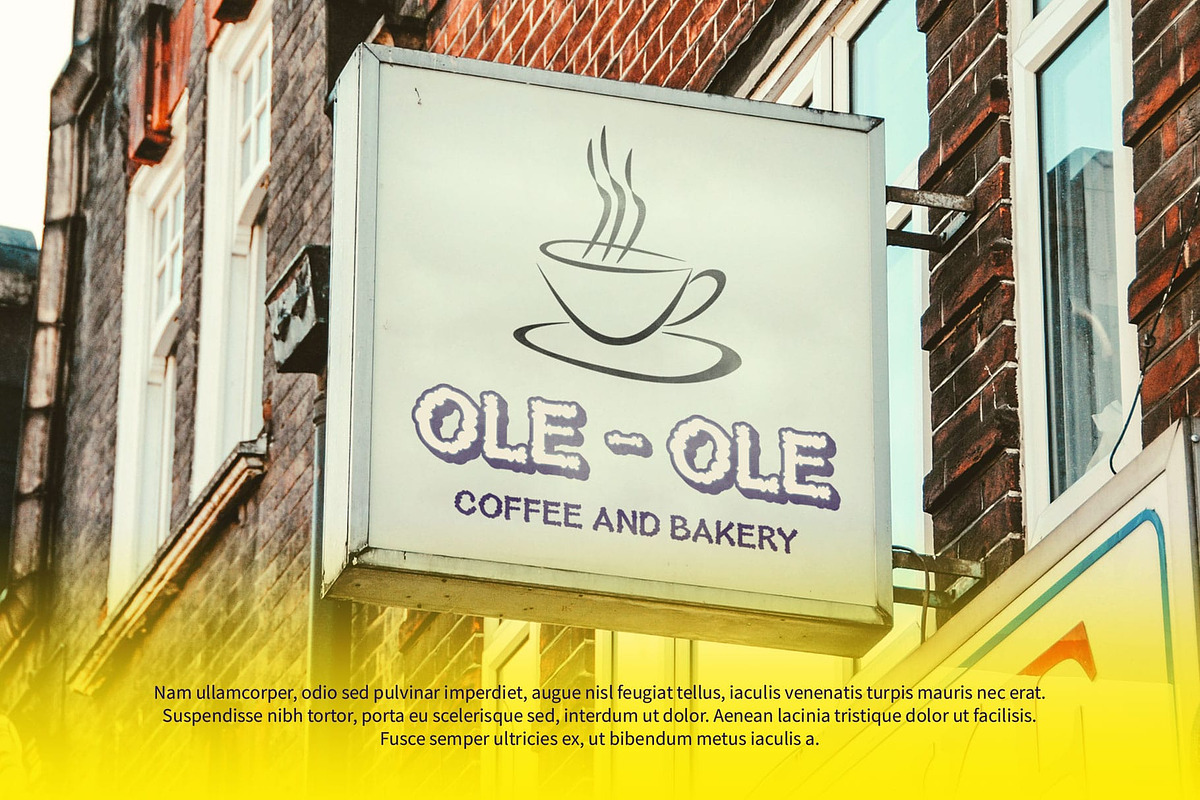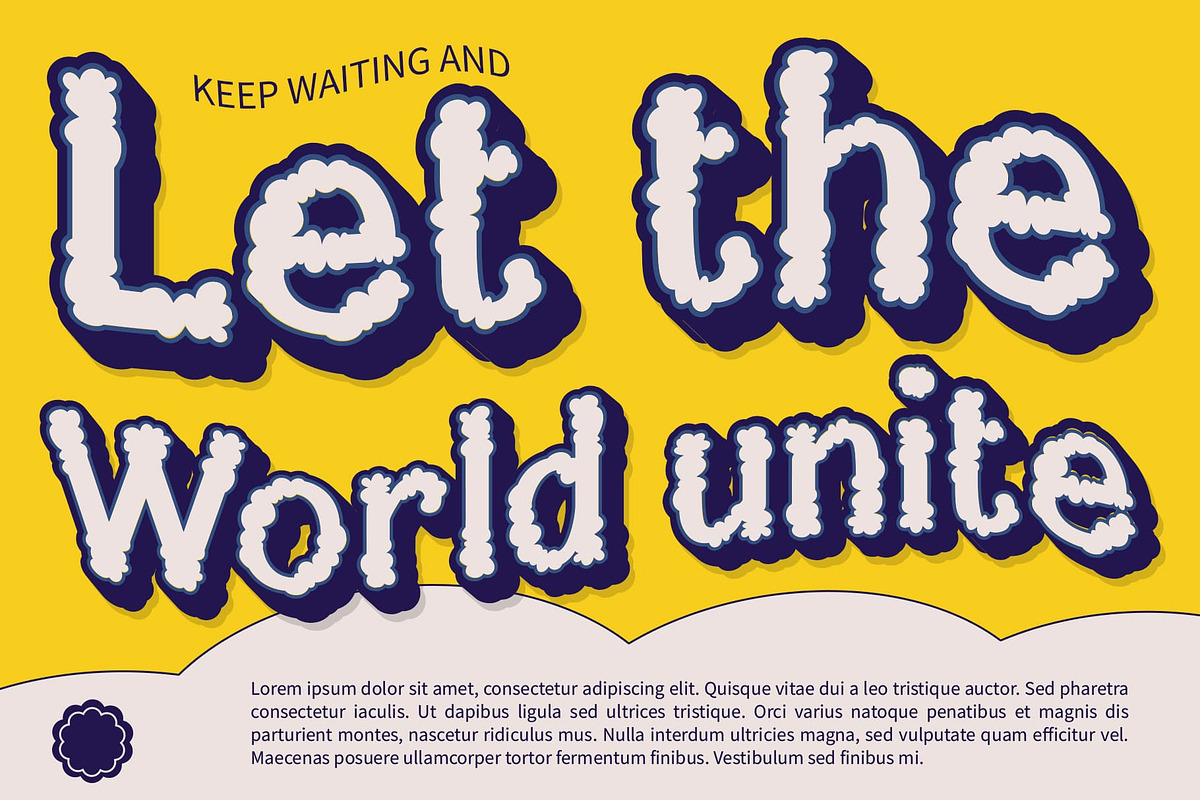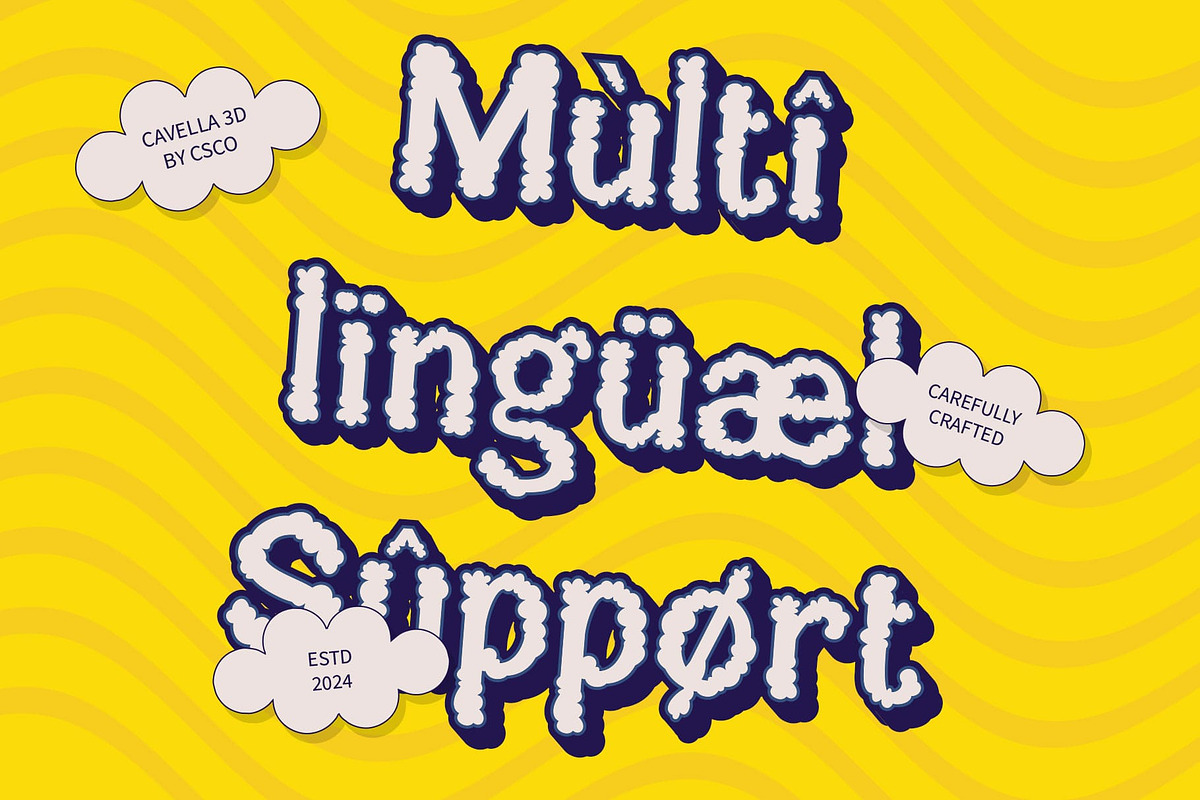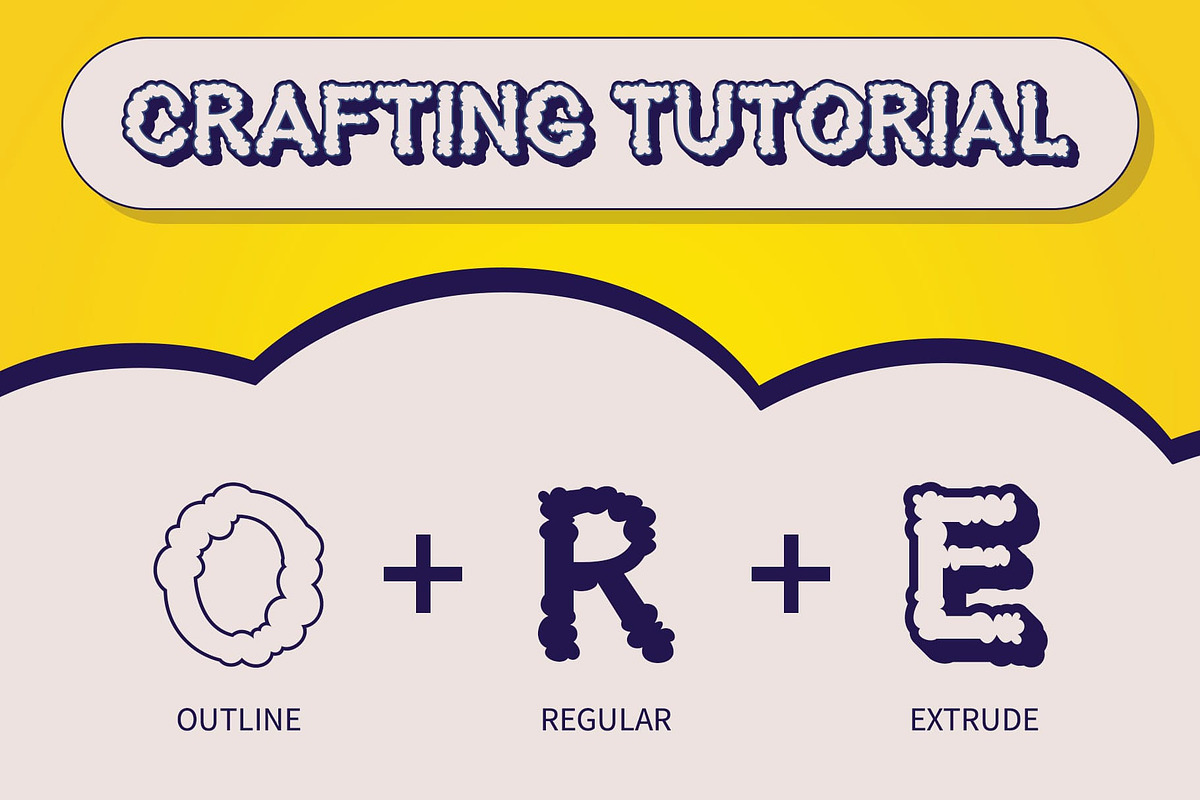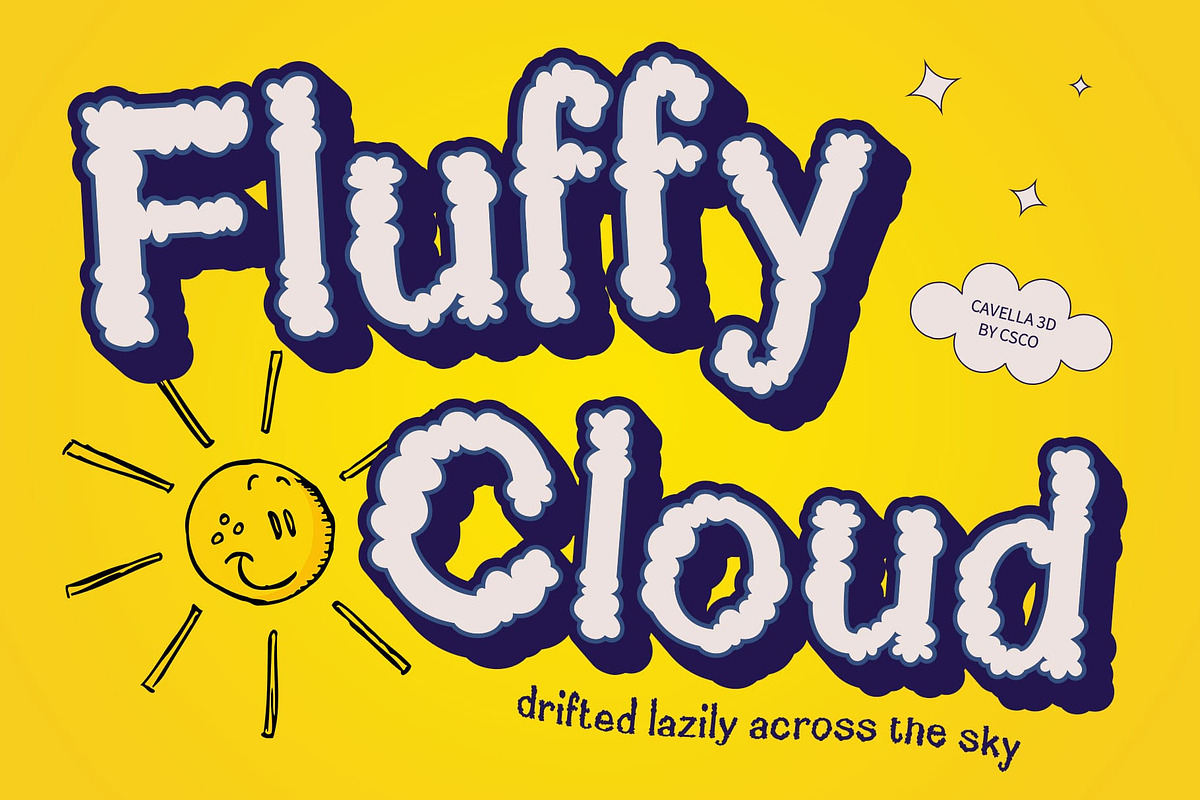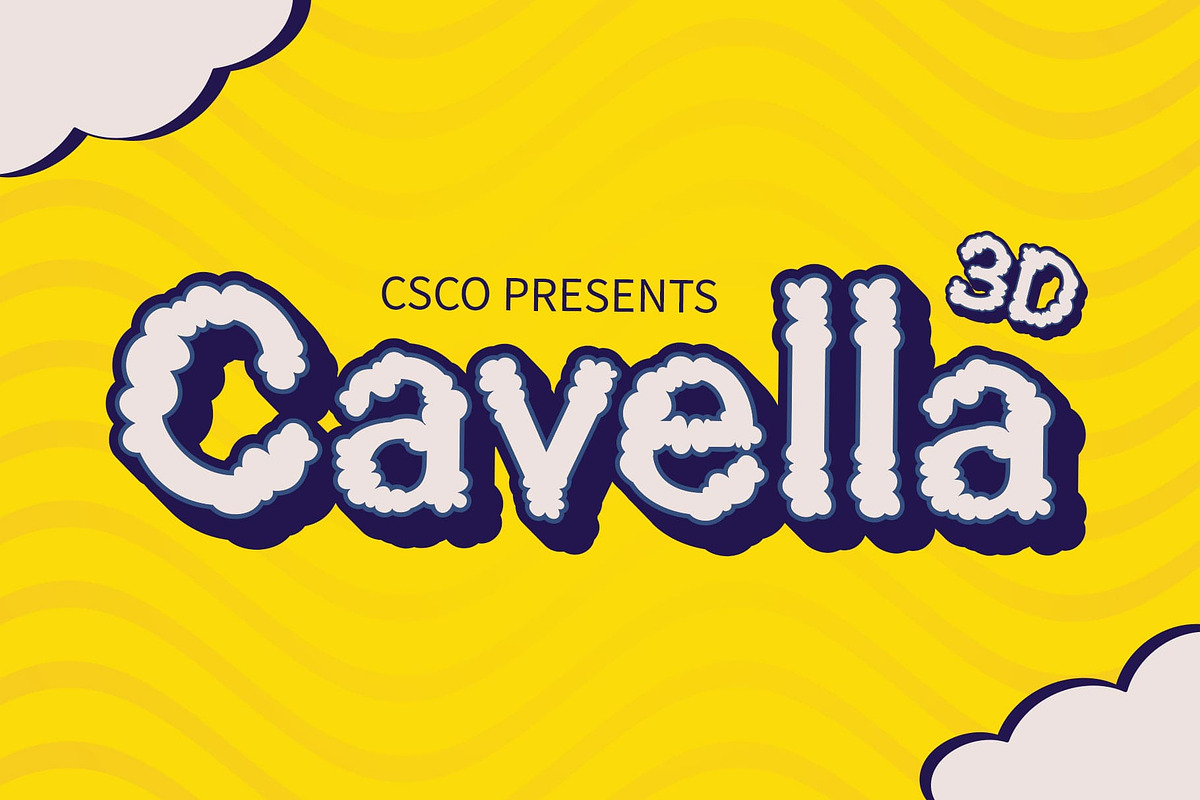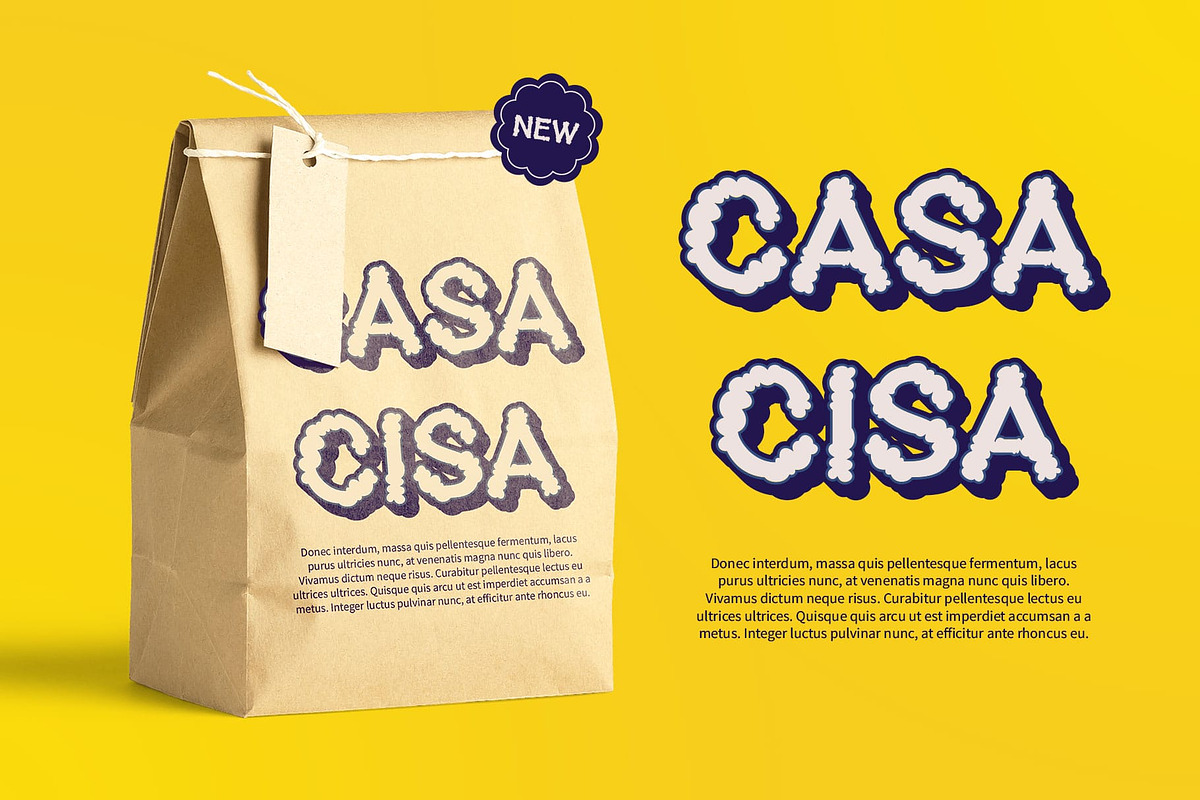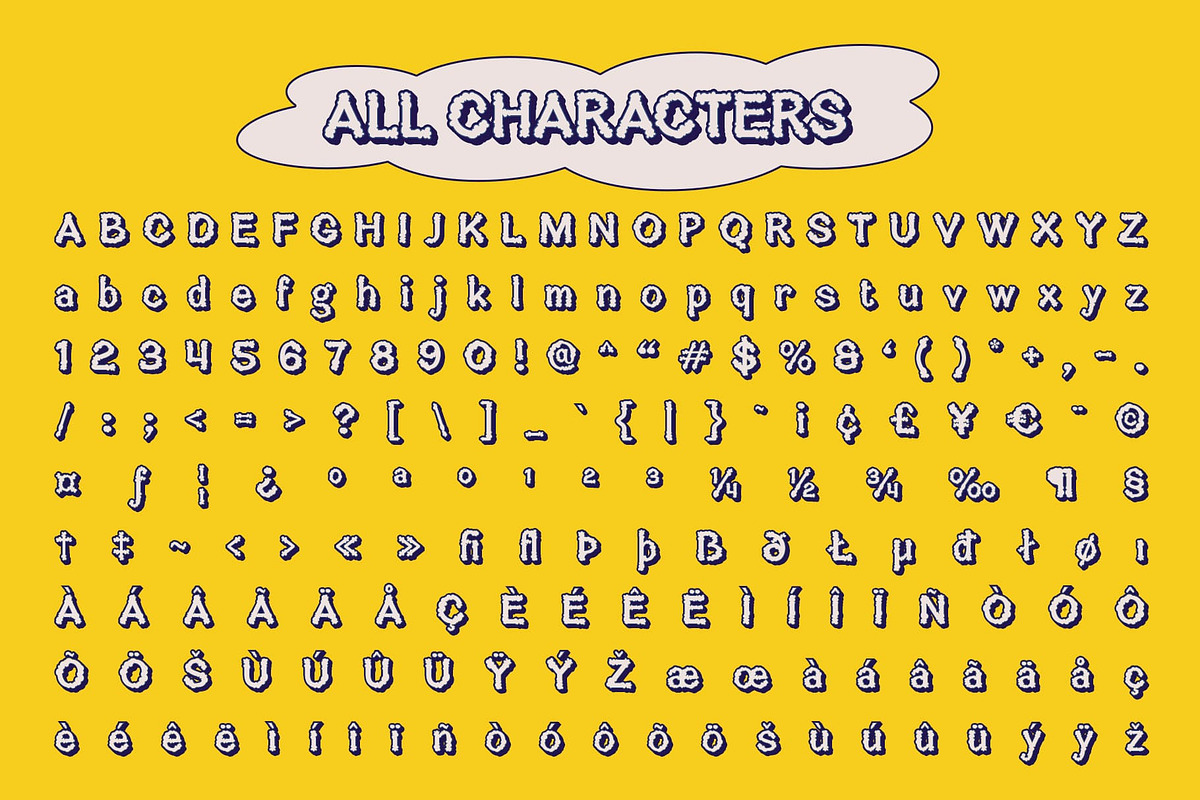
Cavella 3D
Cavella 3D Font – A Unique Psychedelic Display Font
Funky, Cheerful Design with Lively Aesthetics Cavella 3D is an eye-catching psychedelic display font that embodies a funky and cheerful spirit. Its design is characterized by flowing, swirling shapes that draw inspiration from the soft, dynamic forms of smoke, creating a visually captivating experience that dances across the page. This unique aesthetic not only makes the font stand out but also evokes a sense of movement and creativity.
Dynamic 3D Effects for Added Depth What sets Cavella 3D apart is its stunning three-dimensional effect, which enhances its playful design. This 3D depth adds a layer of visual interest, making the characters appear to pop off the screen or page, further engaging viewers. The lively contours and bold forms combine to create an energetic impression that is hard to ignore.
Perfect for Creative and Musical Themes Ideal for design projects centered around music, festivals, and other vibrant creative events, Cavella 3D captures the essence of fun and celebration. Its expressive characteristics make it particularly suitable for posters, album covers, branding for music events, and any promotional materials that aim to convey a sense of joy and excitement. This font is designed to resonate with audiences and invite them into a world of imagination and enthusiasm.
- Cavella Regular
- Cavella Outline
- Cavella Extrude Right
- Cavella Extrude Left